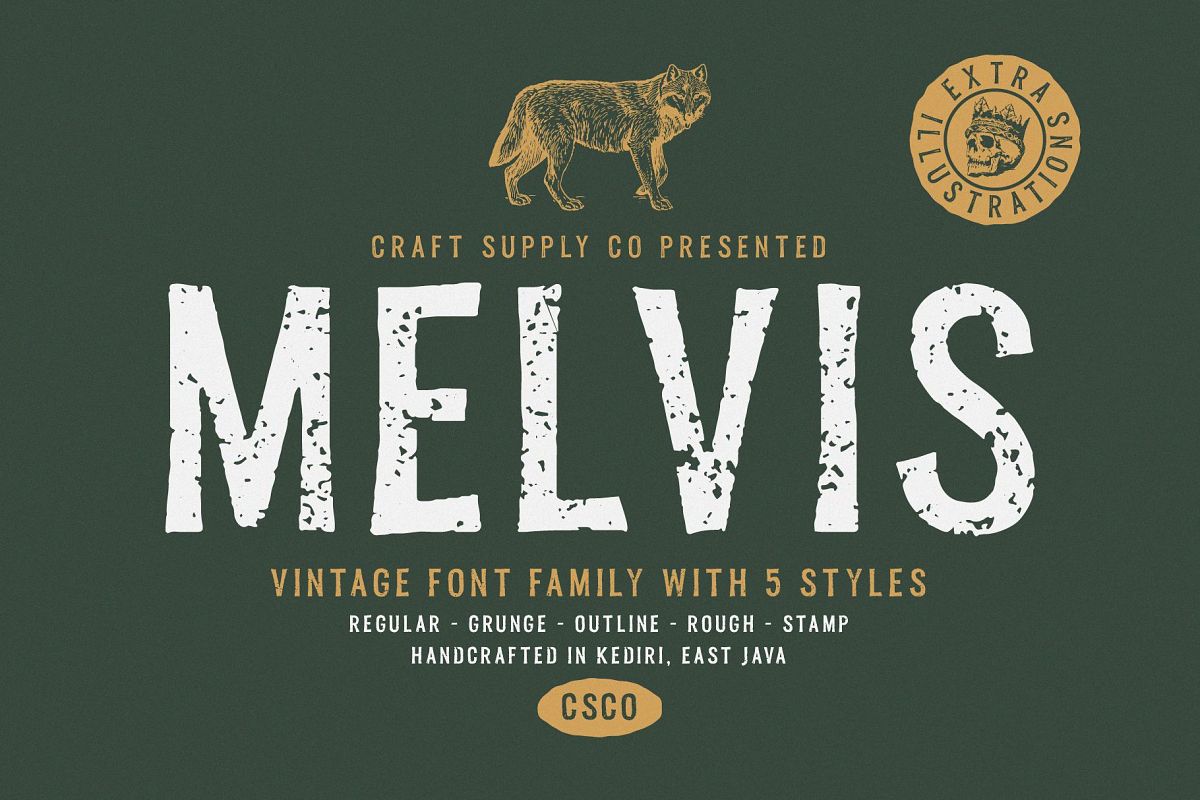
Melvis - Vintage Font Family Extras
Melvis-Outline
Melvis-Regular
Melvis-Grunge
Melvis-Rough
Melvis-Stamp
Melvis - Vintage Font Family + Extras includes 5 Style Fonts.
1. Melvis Regular
2. Melvis Grunge
3. Melvis Outline
4. Melvis Rough
5. Melvis Stamp
1. Upper Case & Lowercase
2. Stylistic Alternates
3. Standart Ligatures
4. Numerals & Punctuations (OpenType Standard)
5. Accents (Multilingual characters) (AÀÁÂÃÄÅCÇDÐEÈÉÊËIÌÍÎÏNÑOØÒÓÔÕÖUÙÜÚÛWYÝŸỲŸÆŒßÞ)